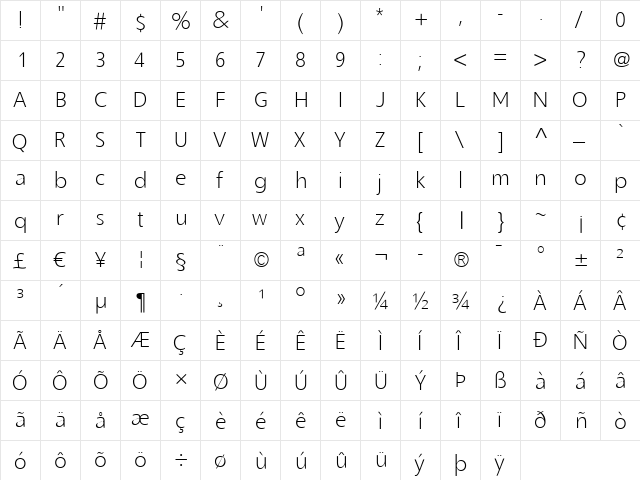
Slippy Light
Design Context for Slippy Typeface
Slippy is a composed and adaptable typeface that performs quietly and consistently across a wide range of design contexts. Its slender proportions lend an understated elegance to any composition.